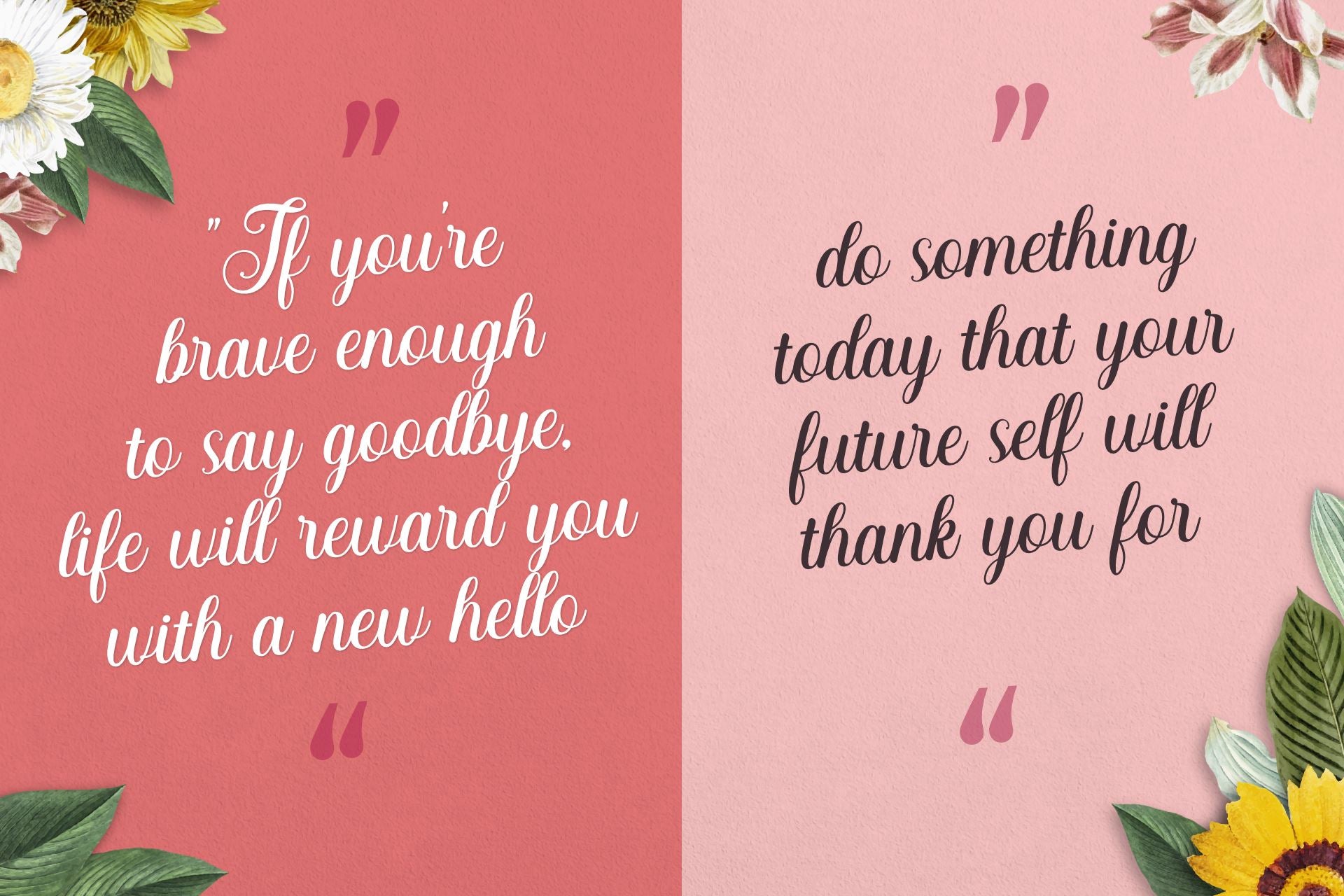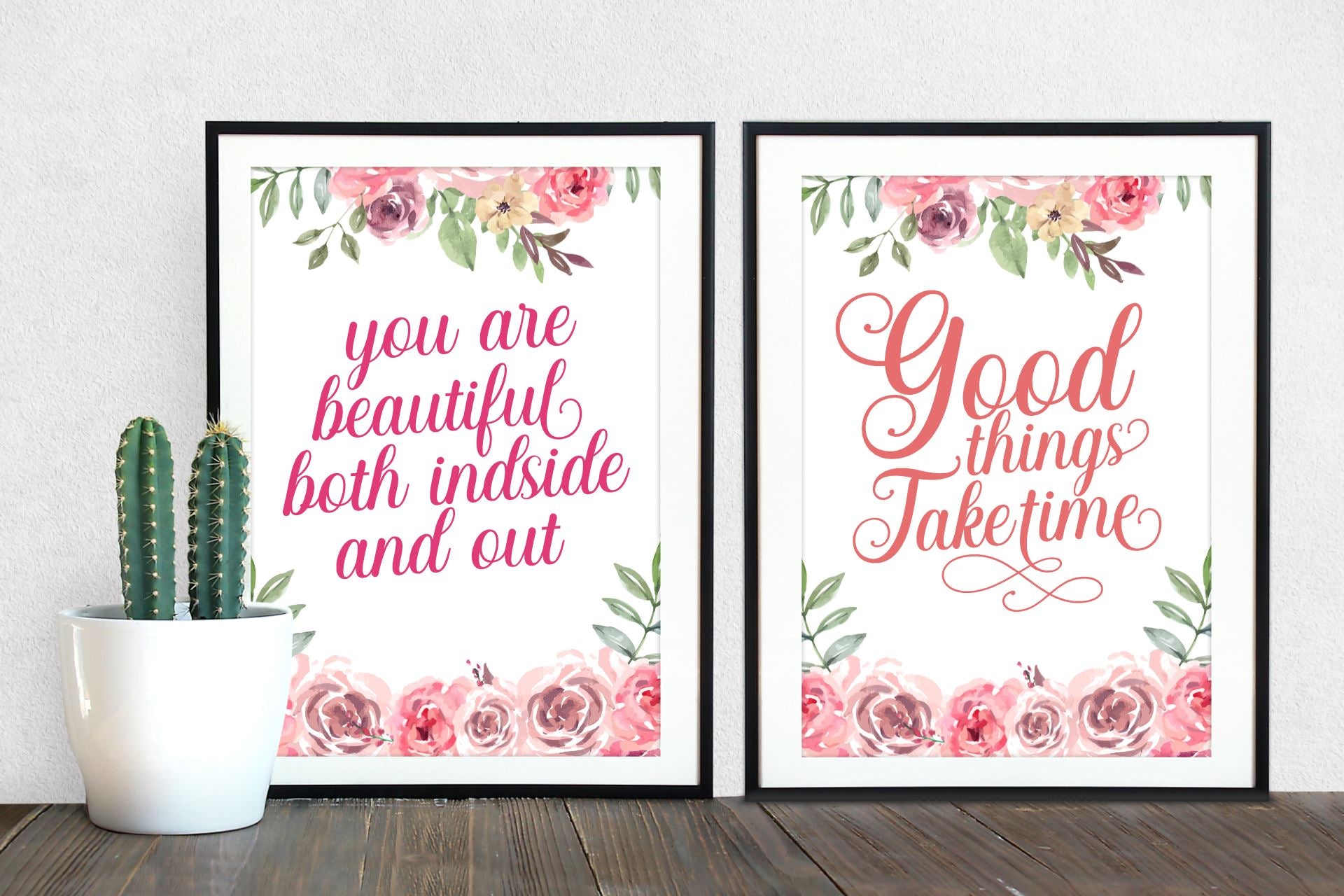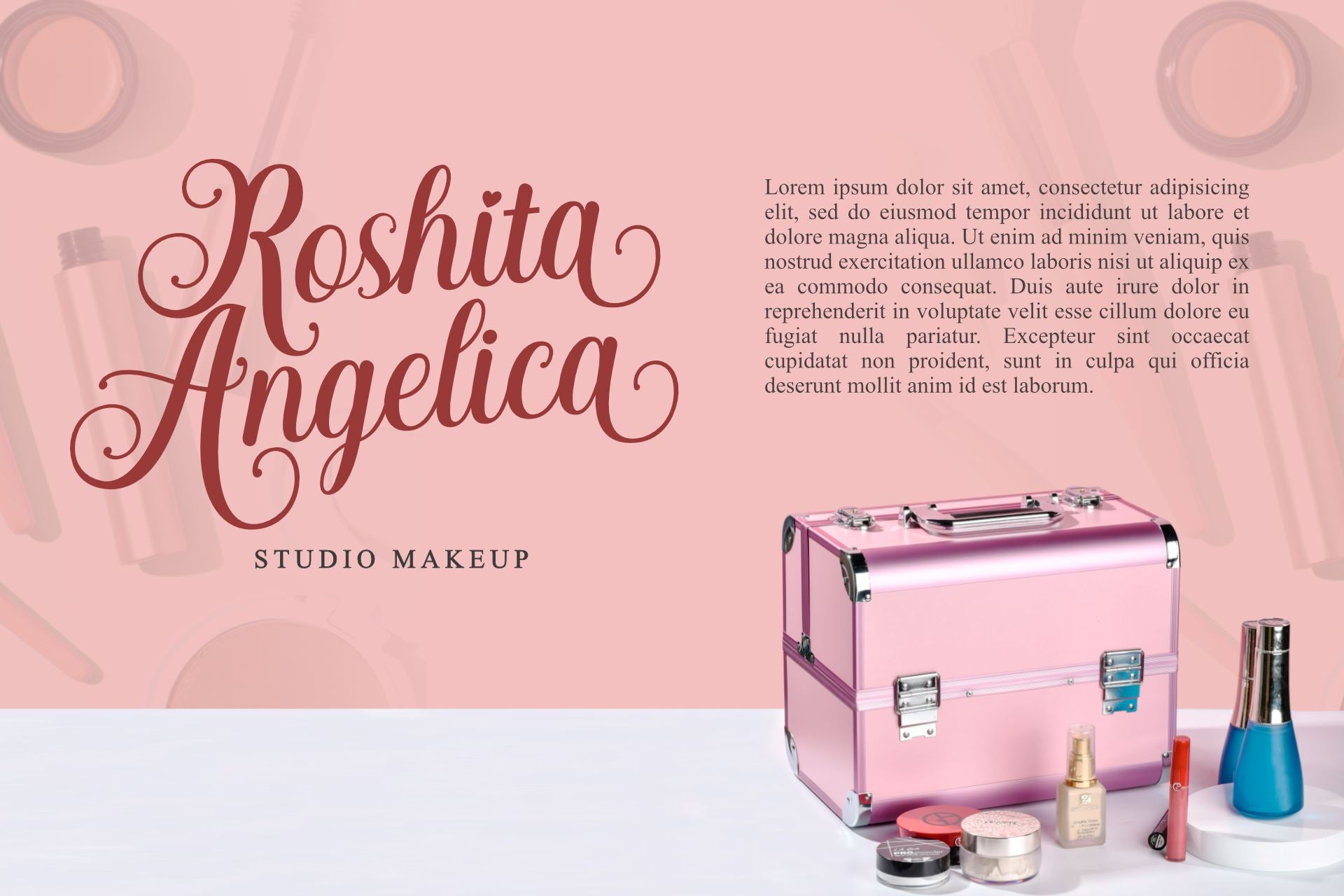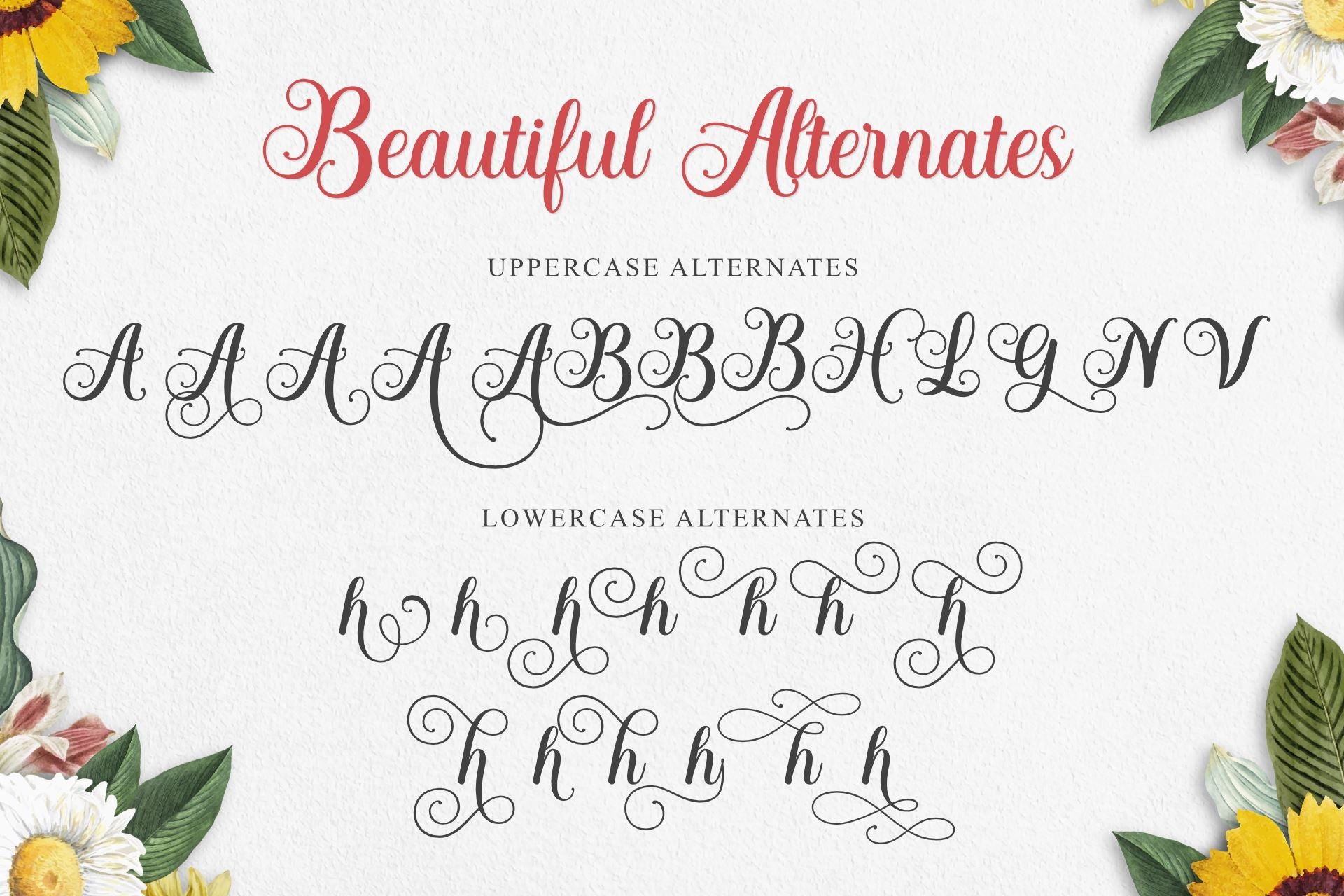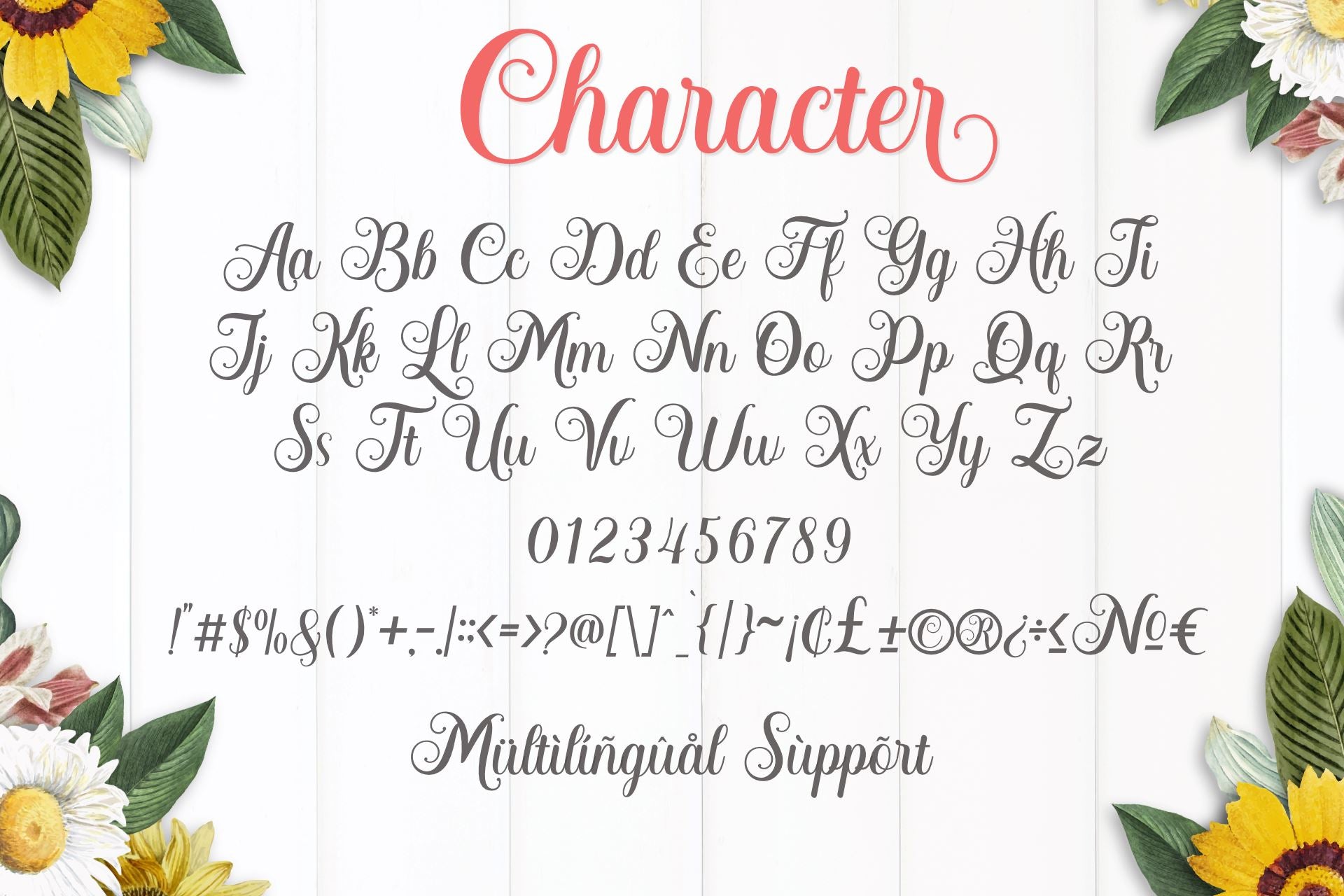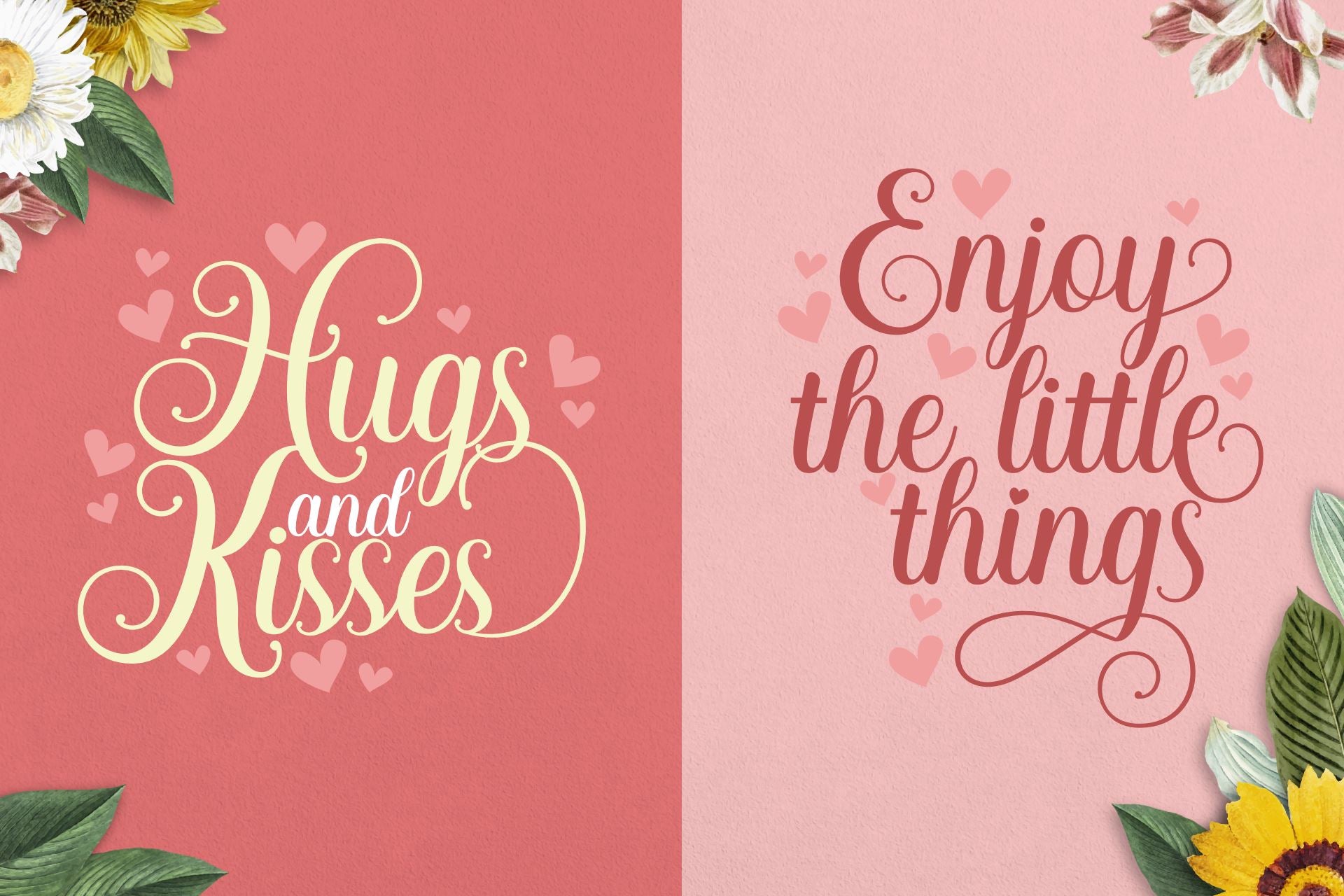
Hesthia Austine
About Hesthia Austine
Hesthia Austine is a wonderful, modern calligraphy font. This gentle font will look gorgeous on a variety of design ideas. It will add a joyful and romantic touch to each of your projects! Hesthia Austine is PUA encoded which means you can access all of the glyphs and swashes with ease!